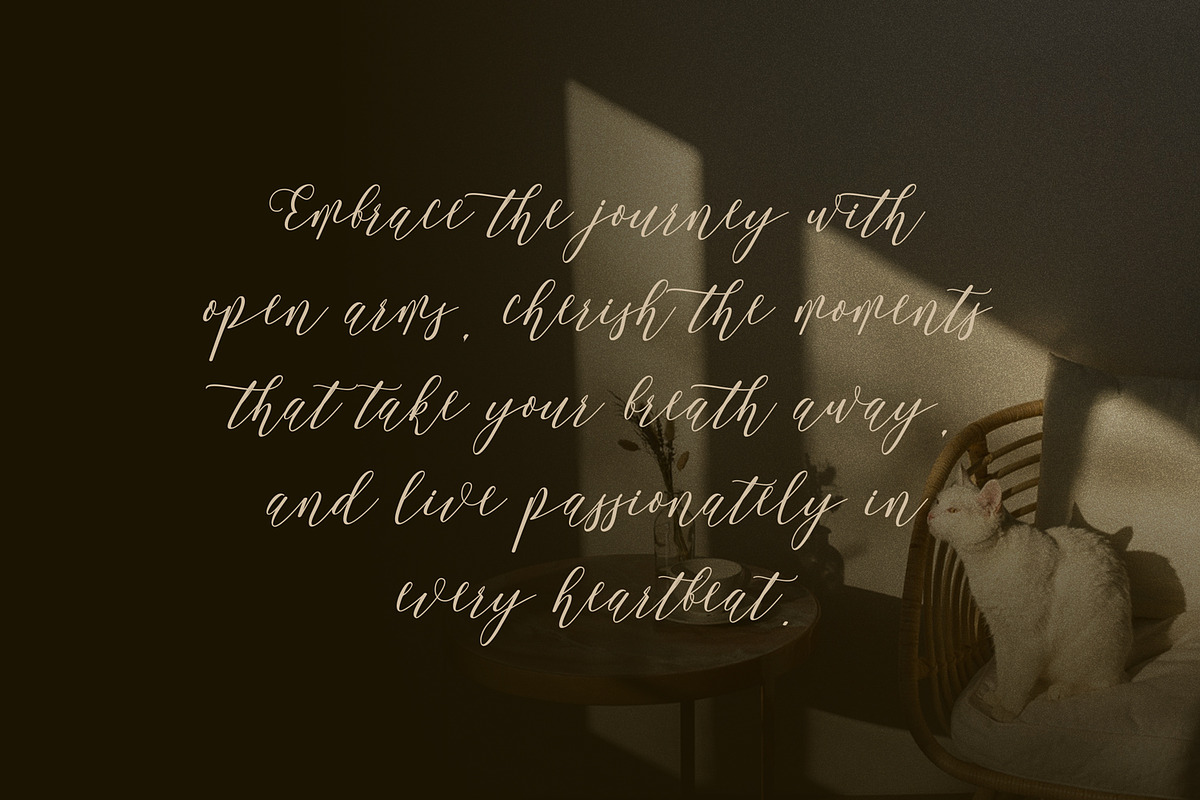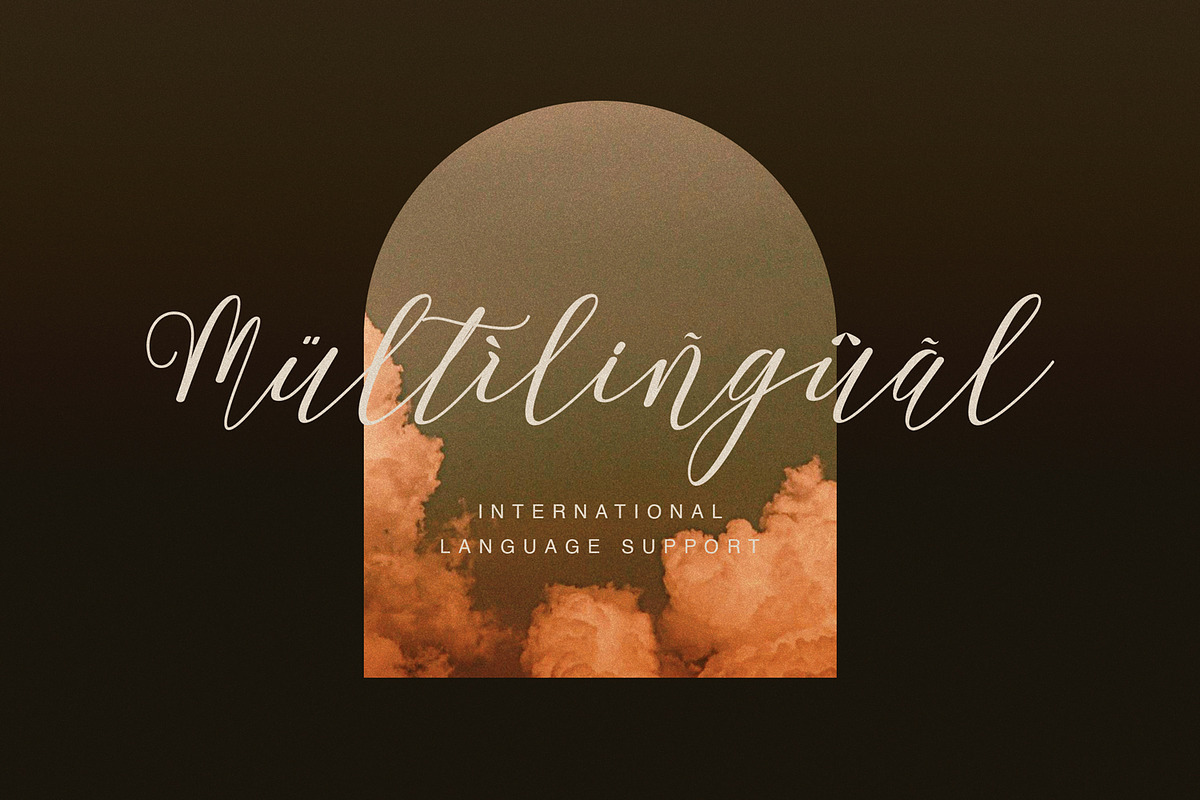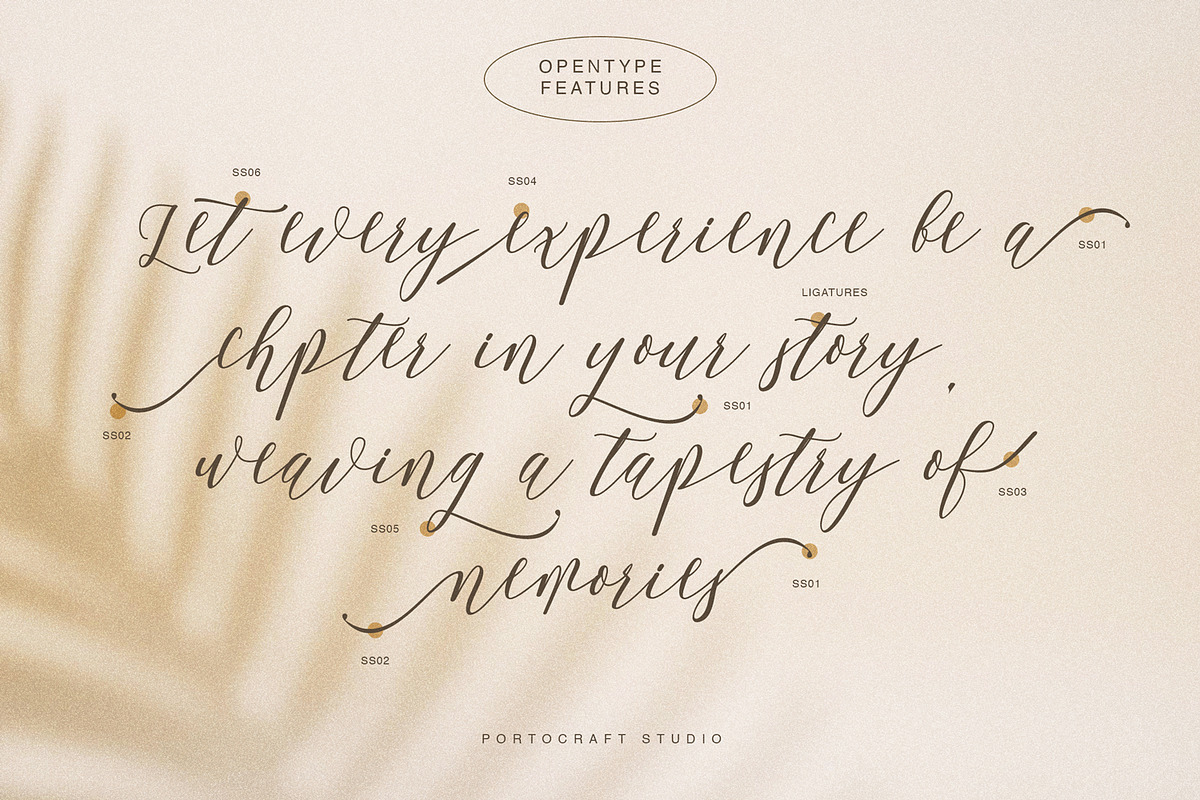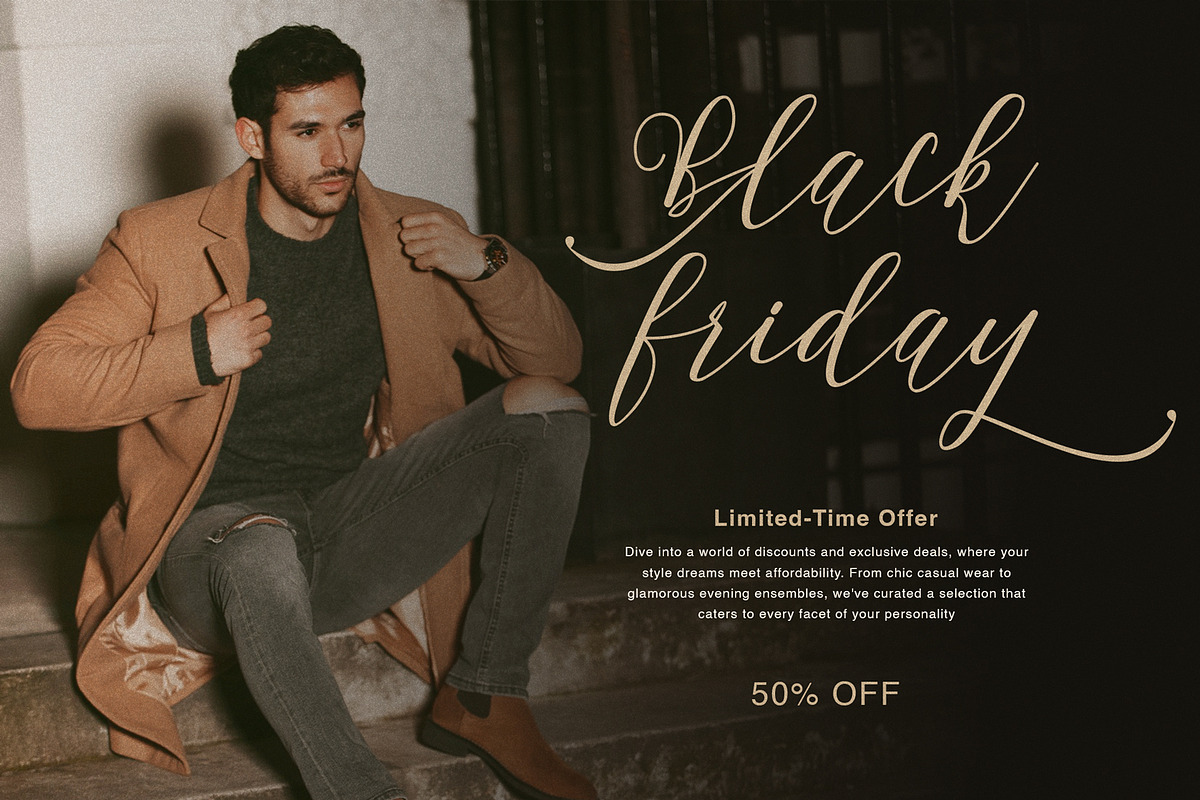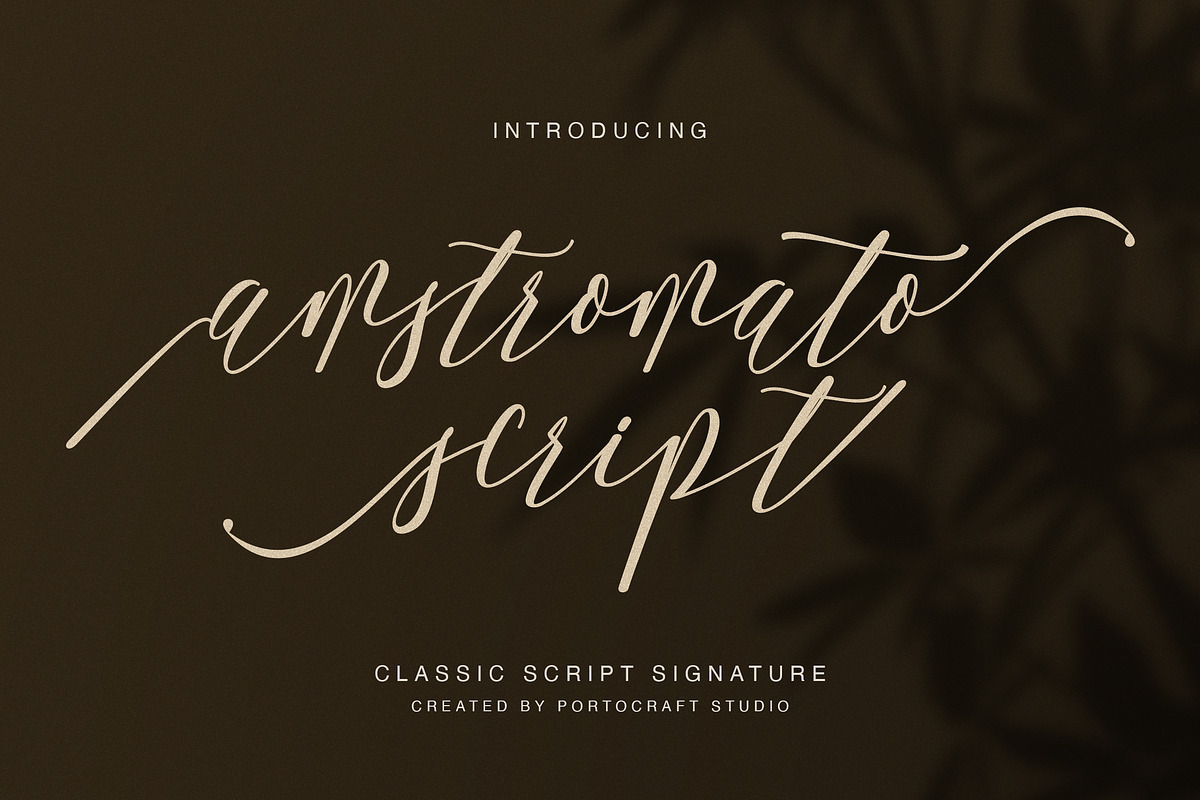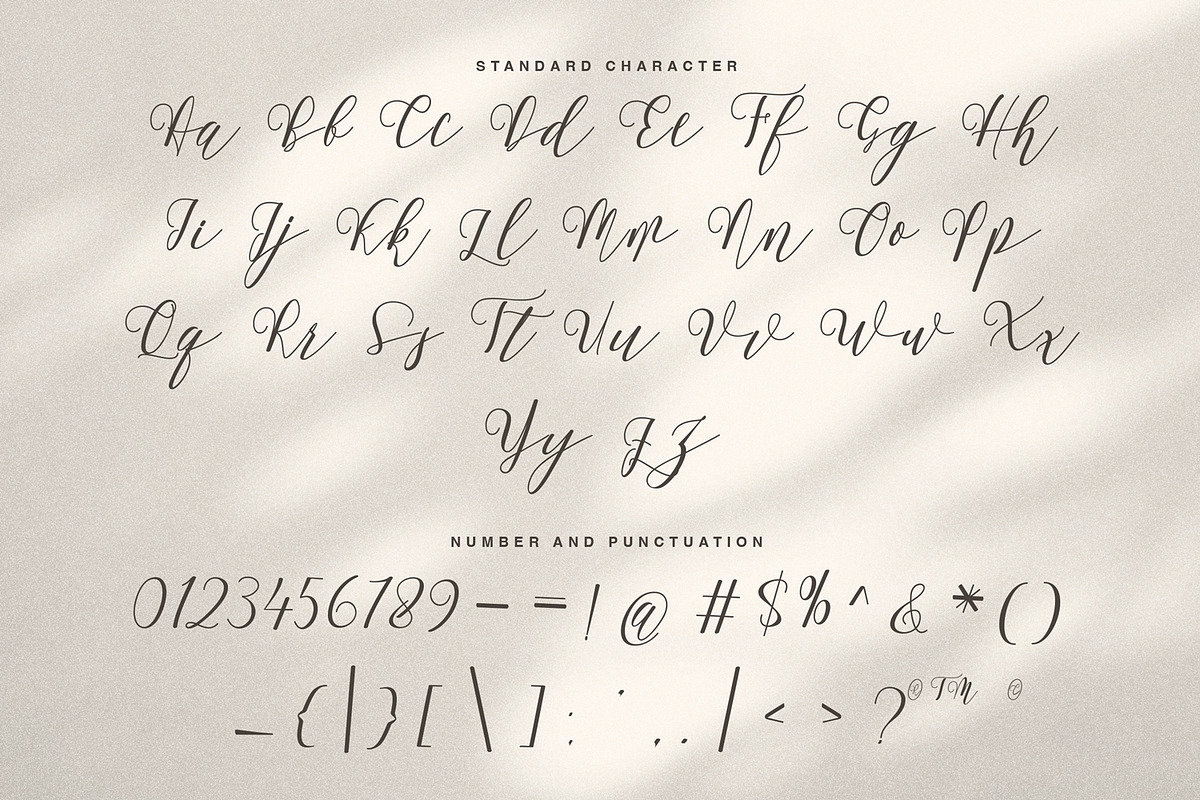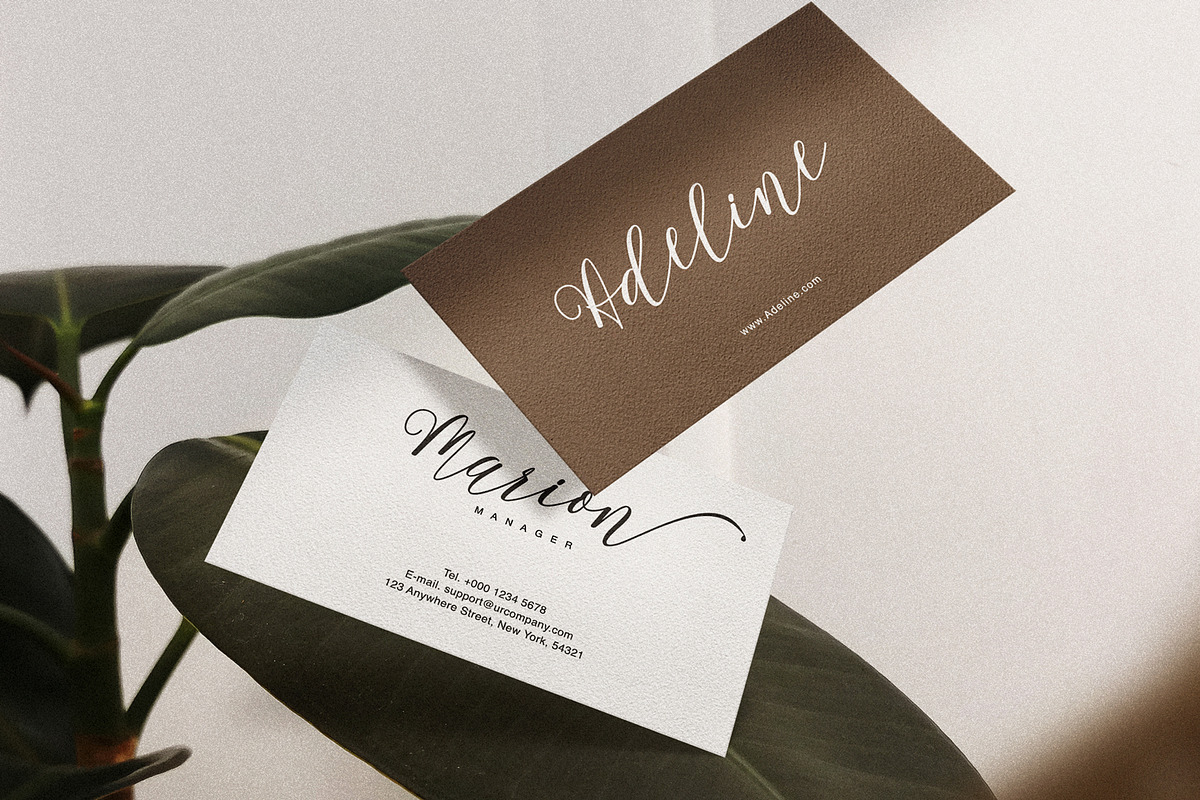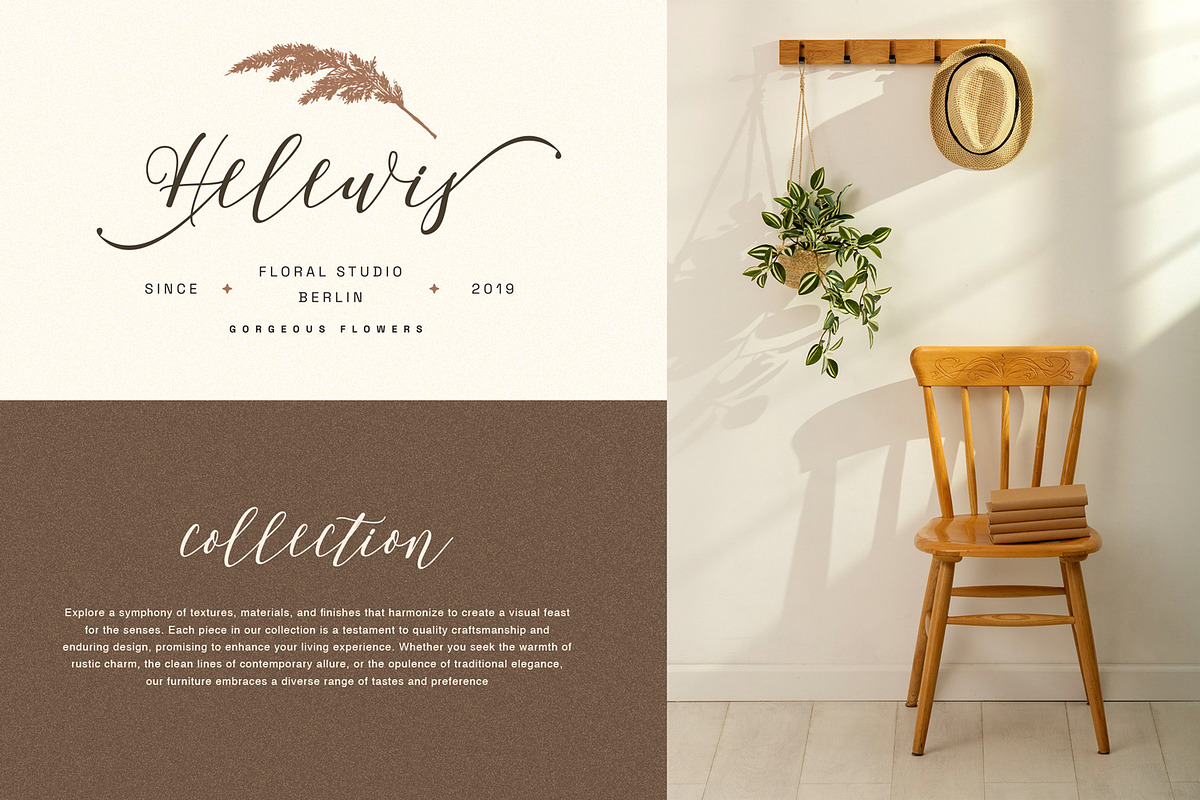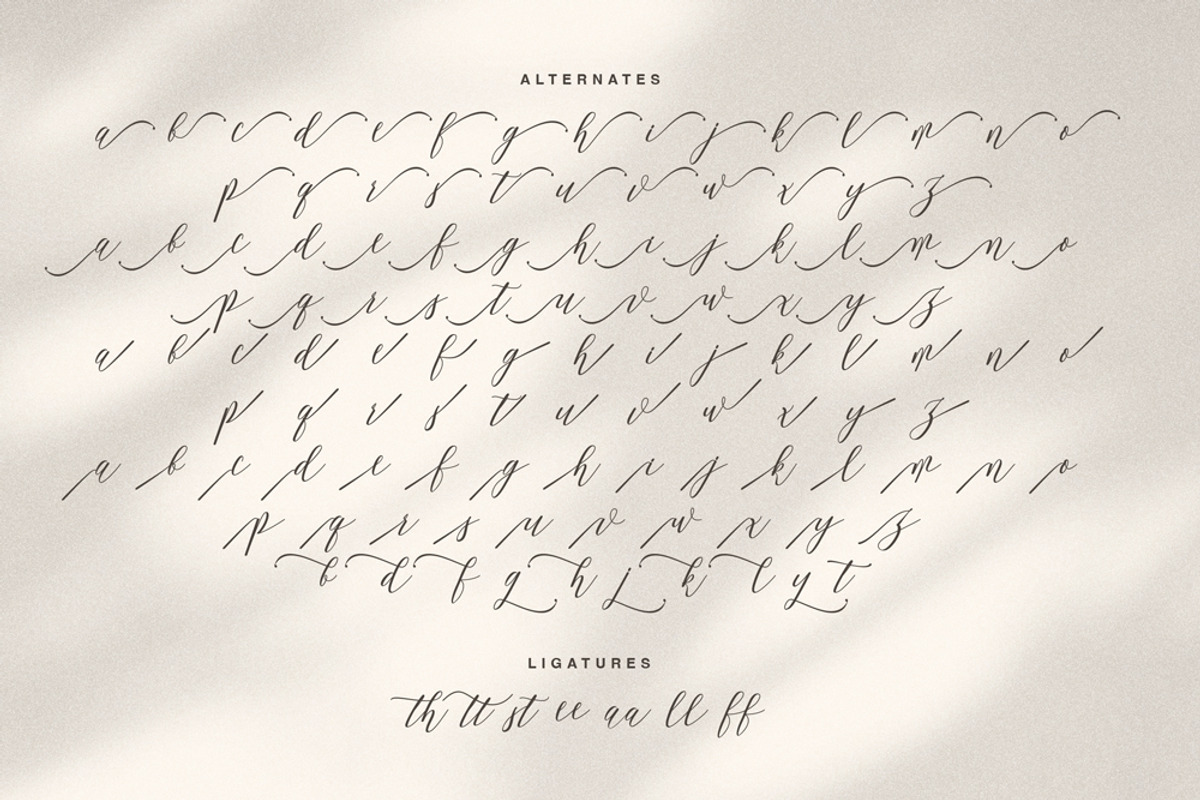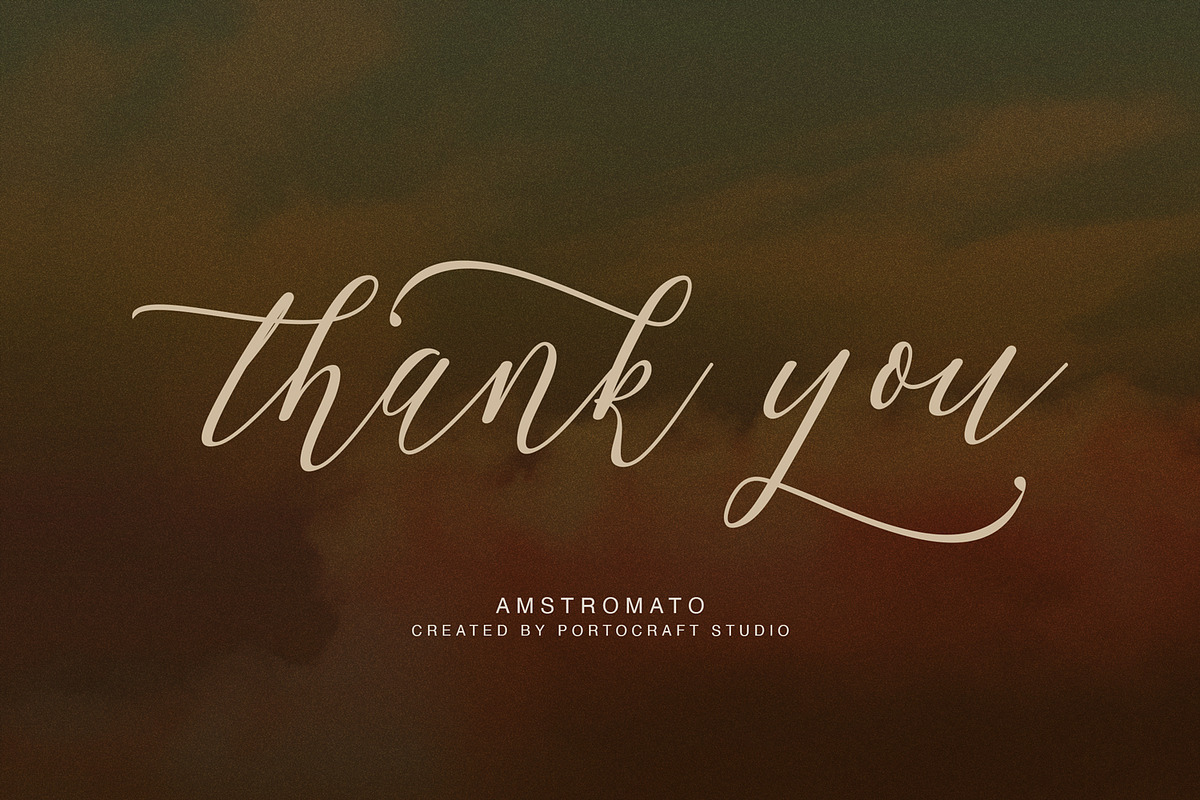
Amstromato Script Signature
Amstromato Script Signature is a stylish font It has both perfect for wedding invitations, elegant handwritten logos and branding, websites, social media quotes, and more! Included are a full set of beginning.
- Unique Letterforms